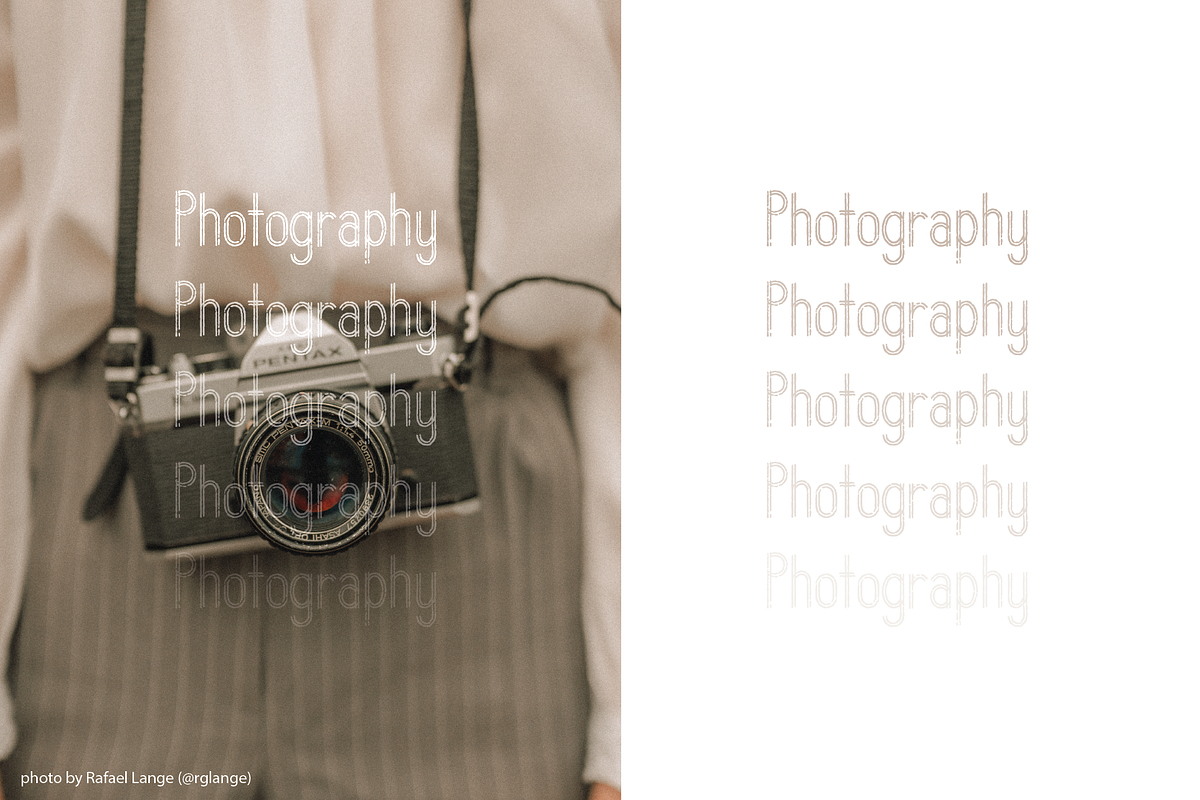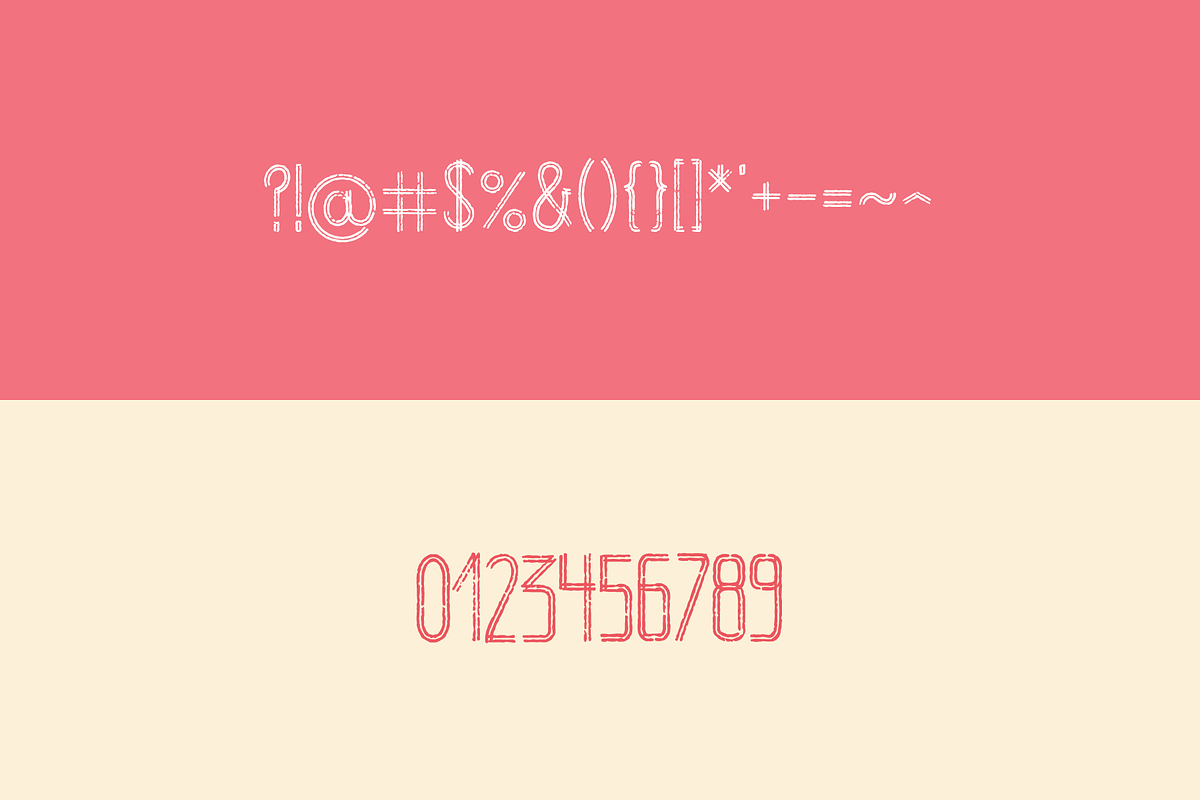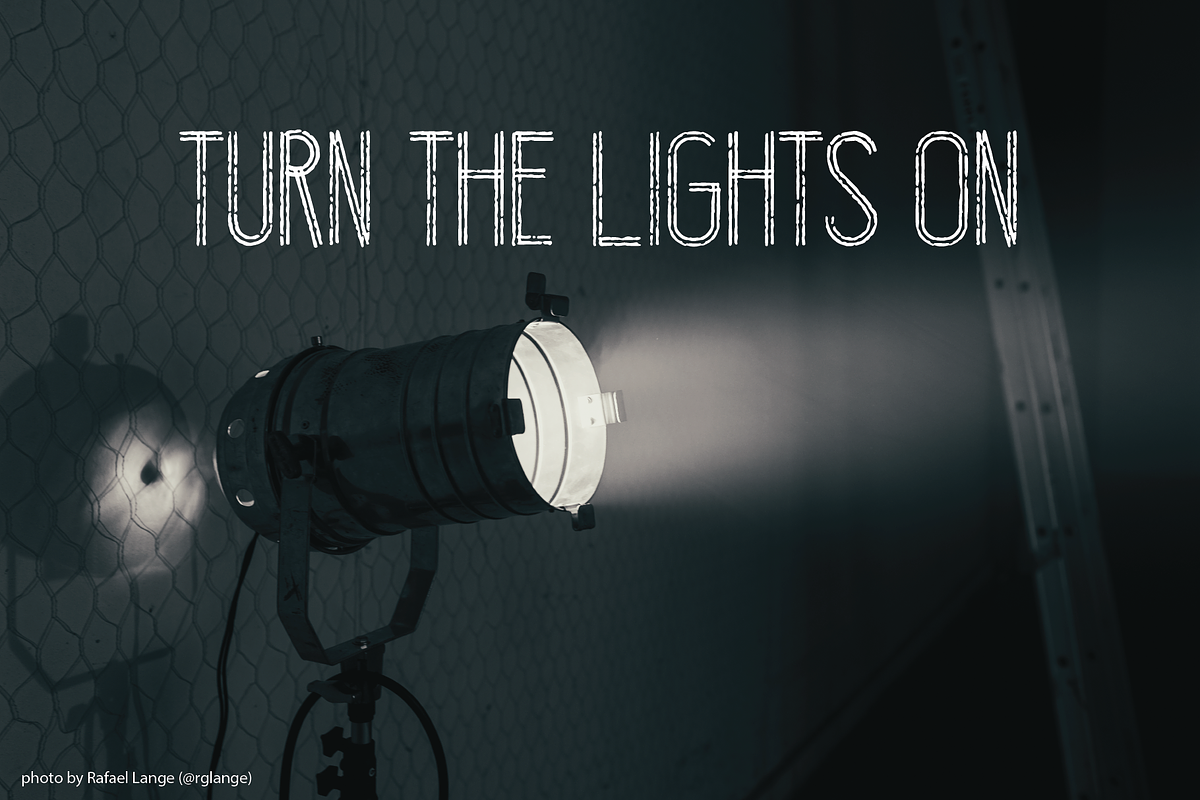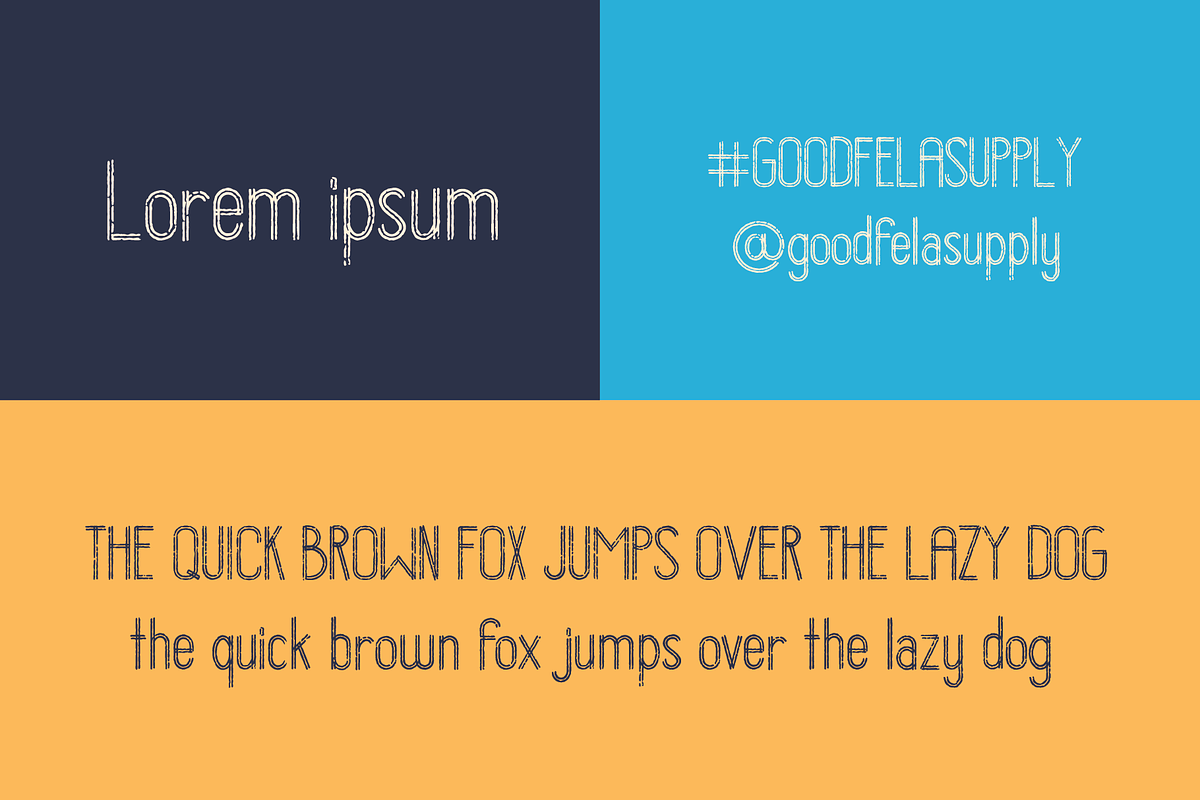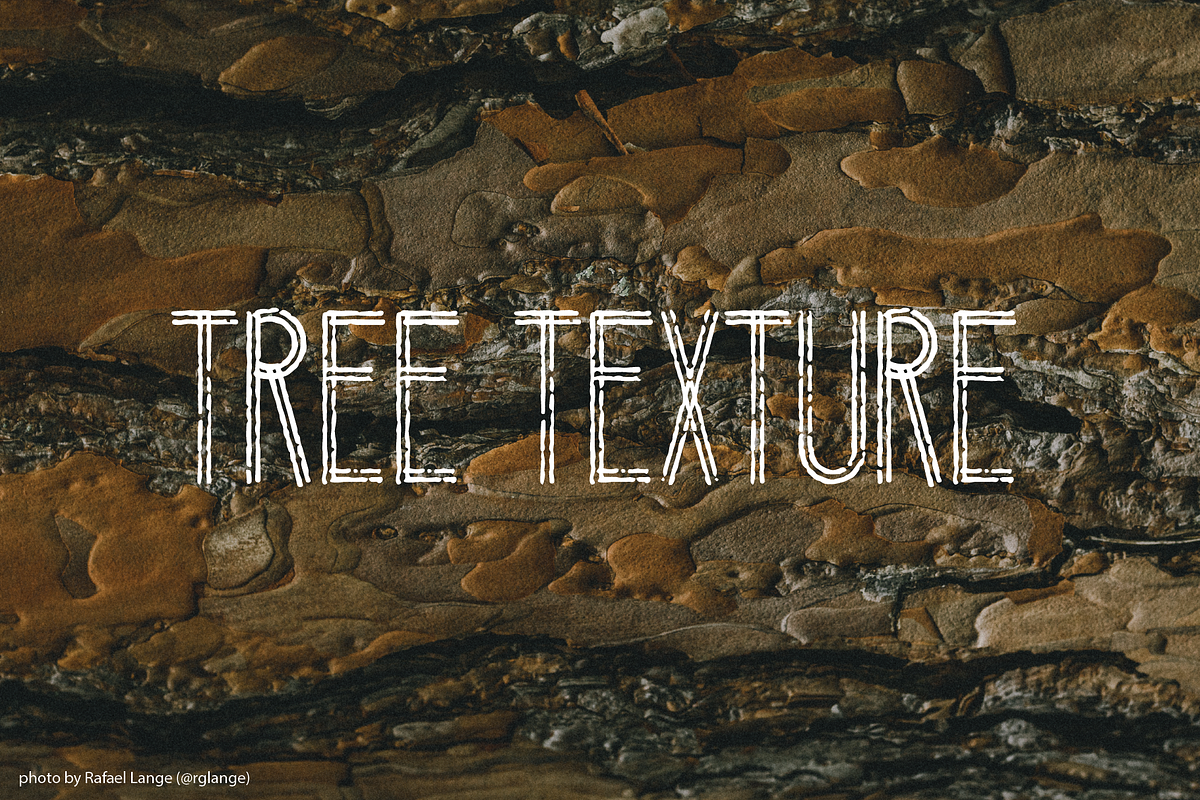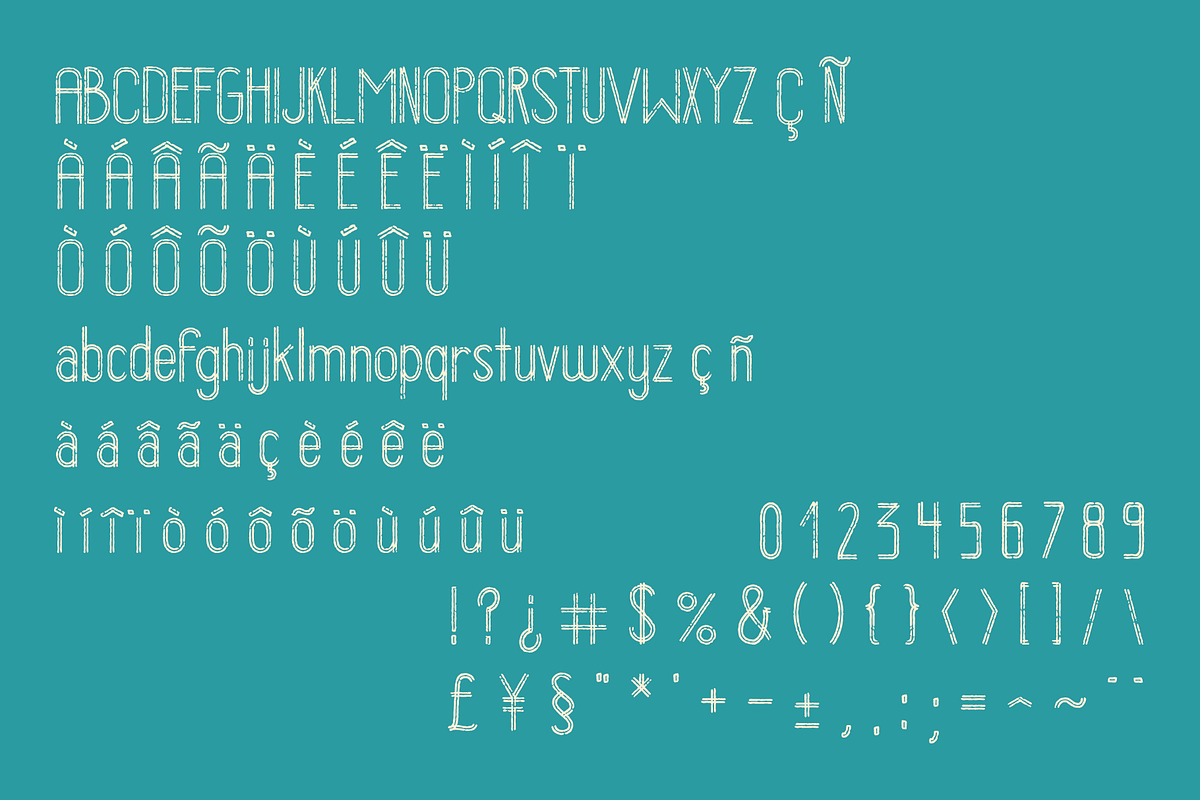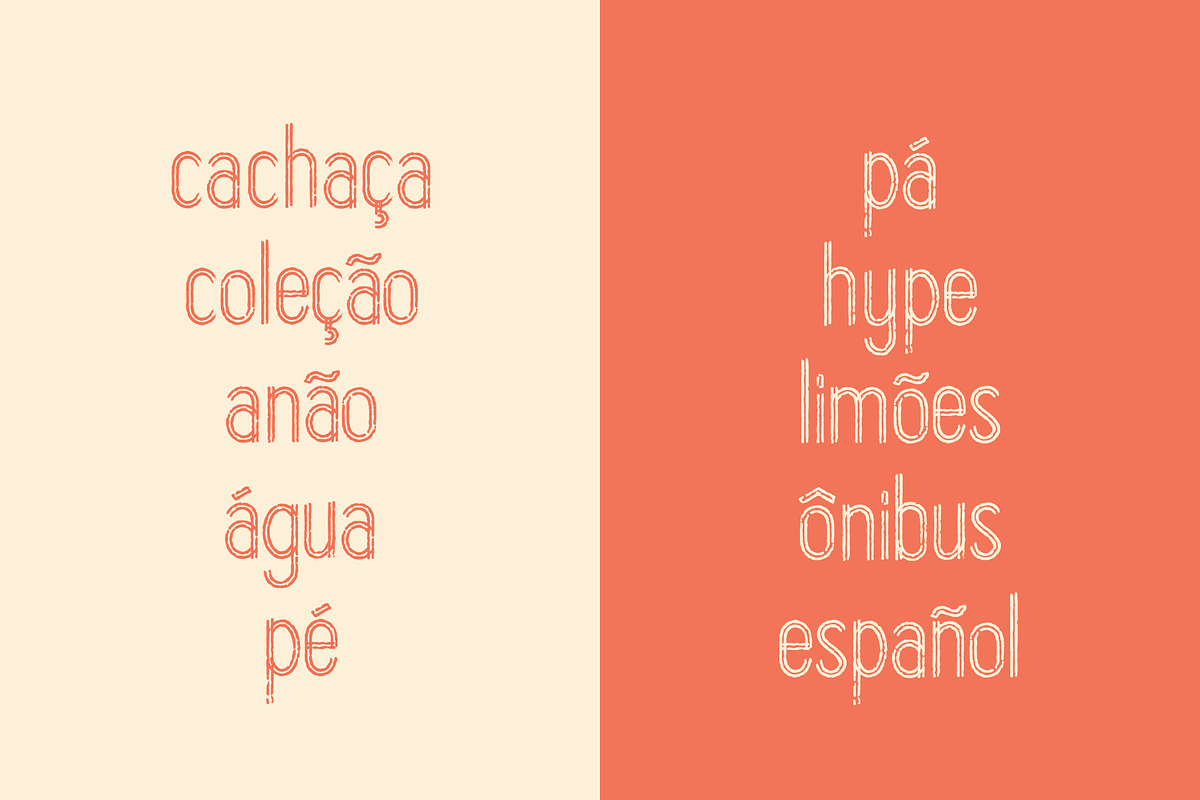
Stripess Font
GOODFELA SUPPLY STRIPESS REGULAR FONT
I present the first font from Goodfela Supply: STRIPESS
Stripess is a regular textured Sans Serif font with an ideal poster application, not just limited to that. It can be used in many works with more underground and street styles, where the texture of the font enhances the impact of the message.